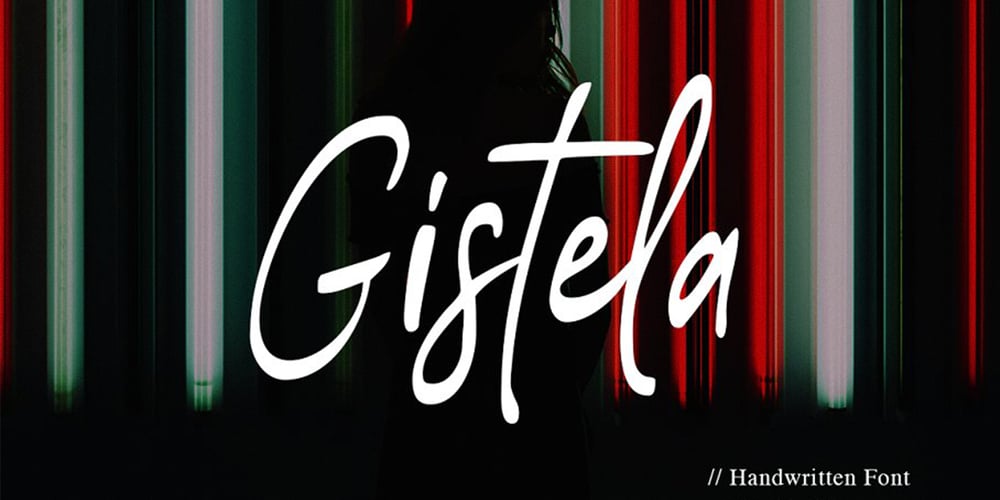
Gistela Font Family was designed by Riski Firmana and published by Solidtype. Gistela contains 1 styles and family package options. Gistela is a handwritten script font. Contemporary and fashionable. with Ligatures and Multilingual Support. This font is perfect for modern projects, headings, blogs, logos, branding, business cards, websites, invitations, shirts, mugs, and more!